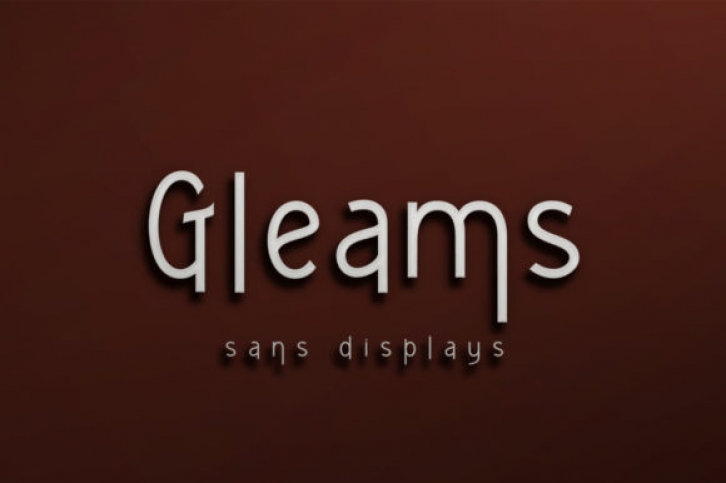
Gleams is a distinct and modern sans serif font. It can be used for various purposes such as logos, wedding invitations, headings, t-shirts, letterhead, signage, labels, news, posters, badges and so much more.